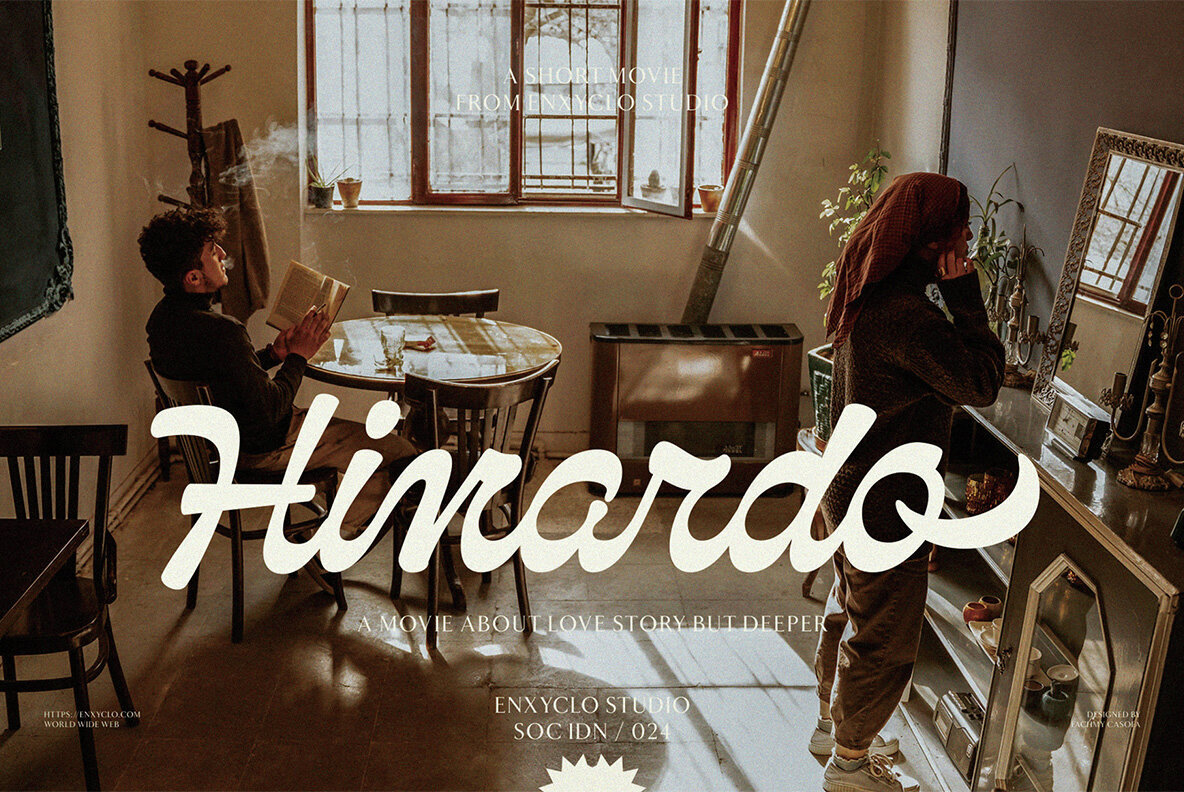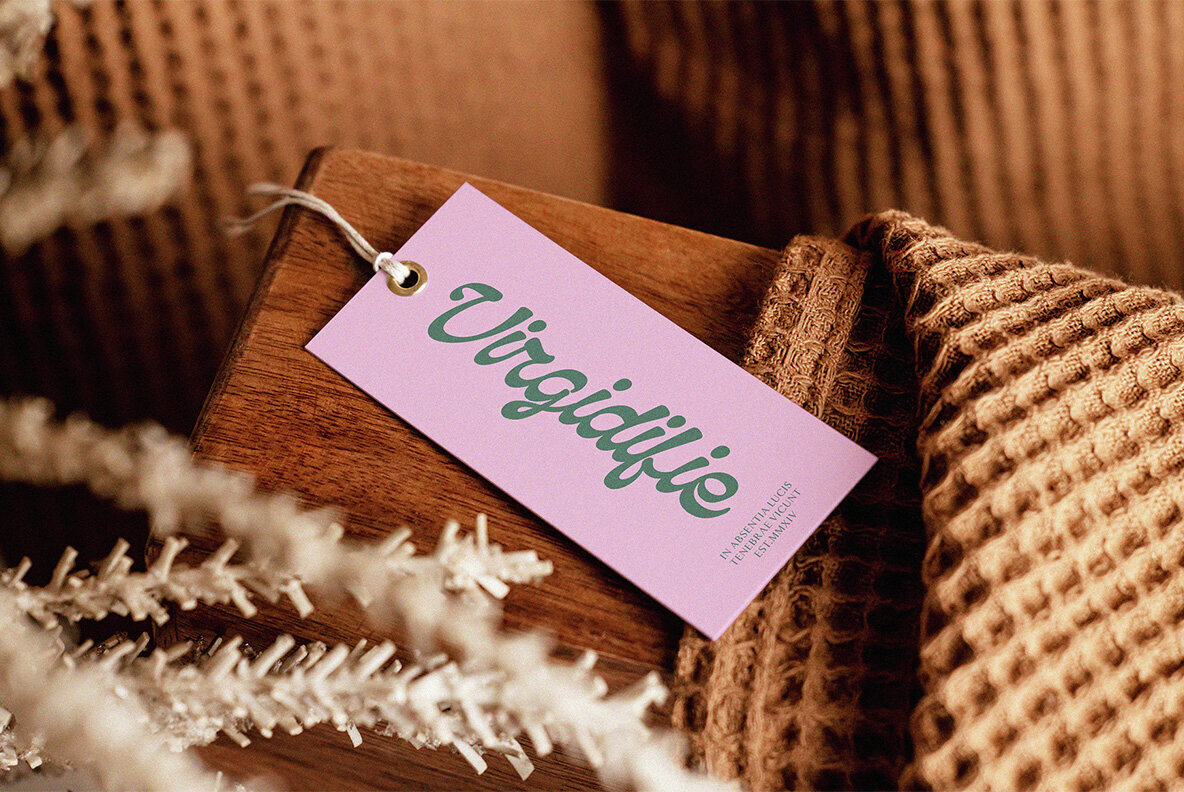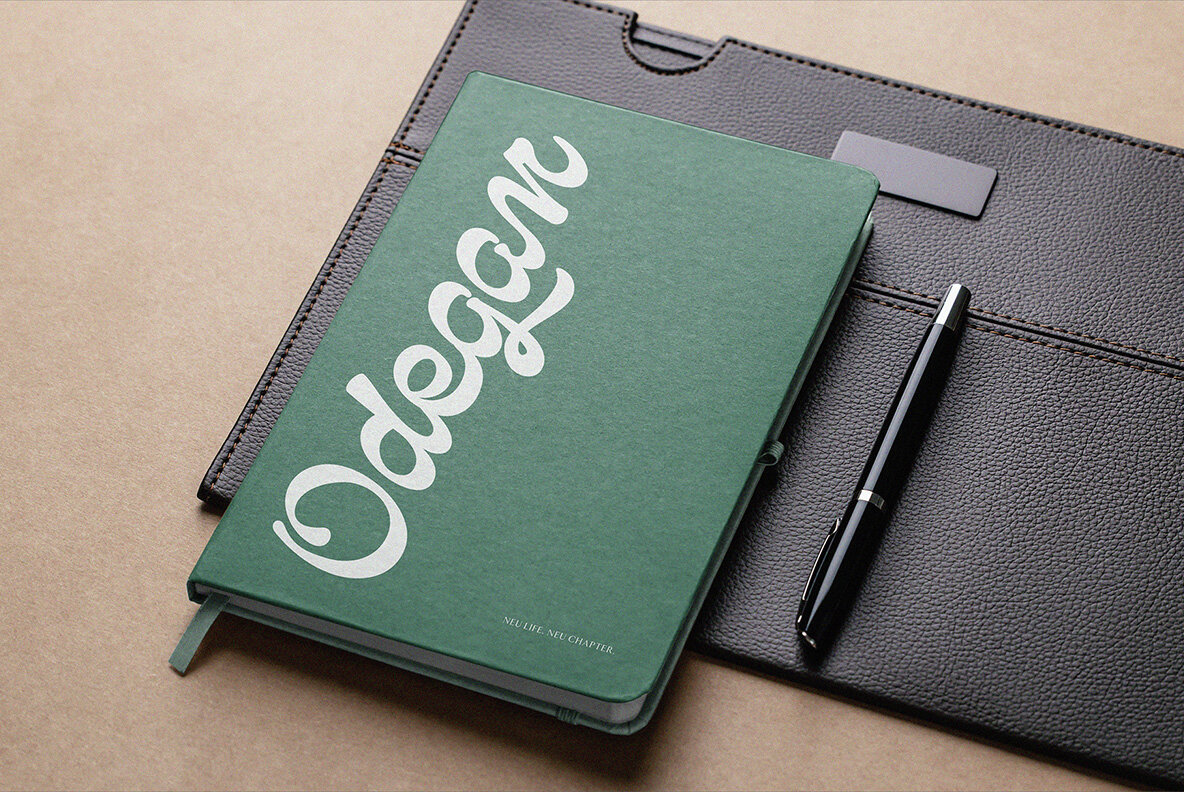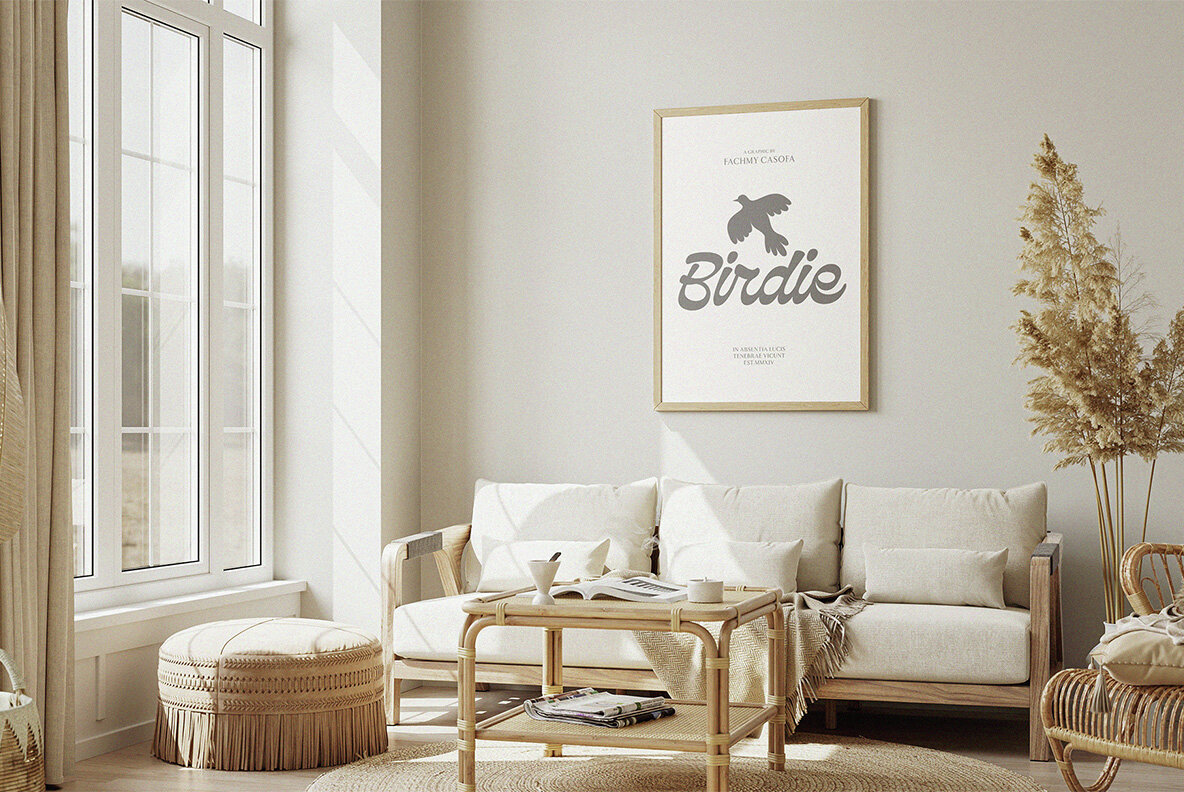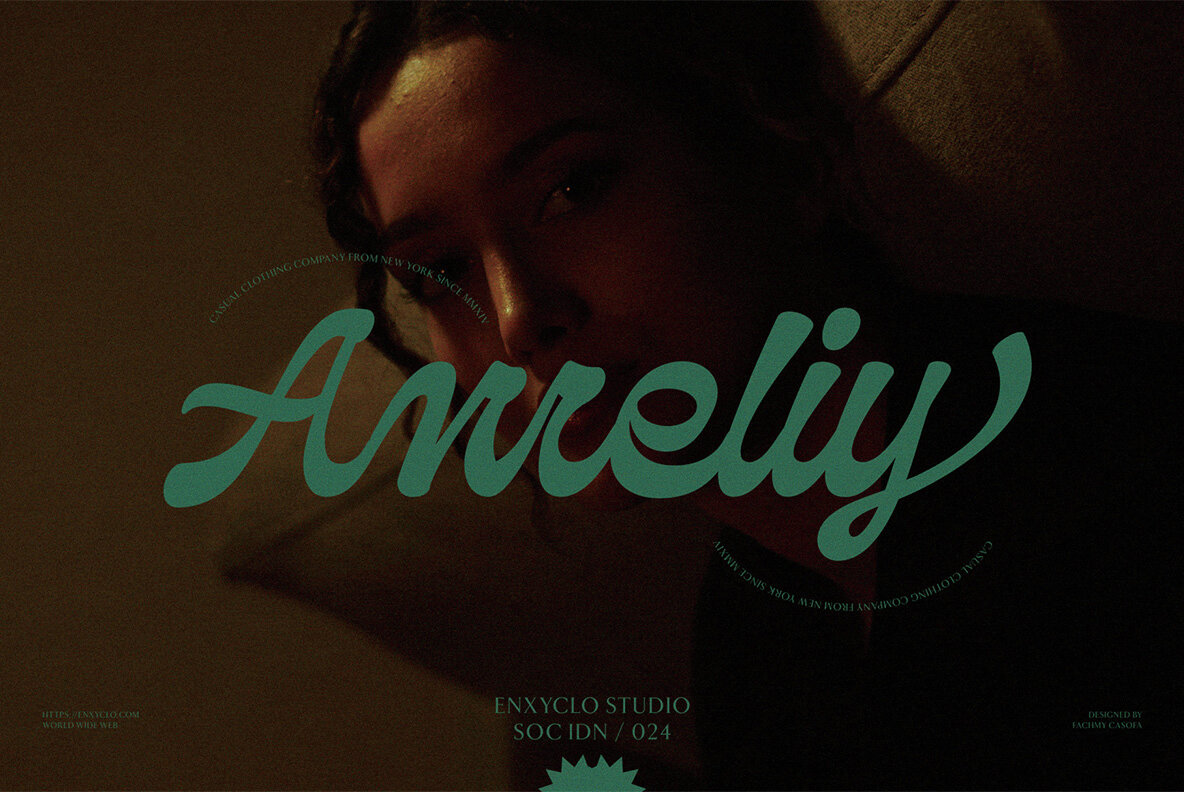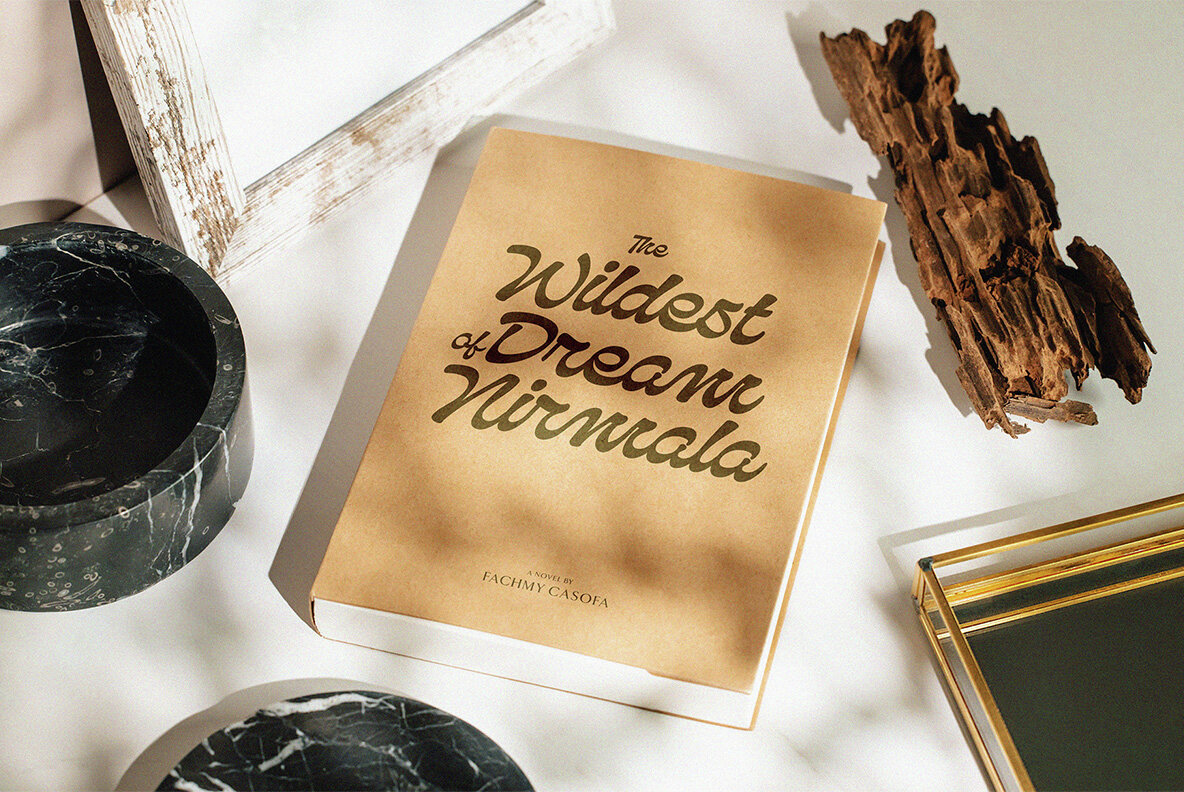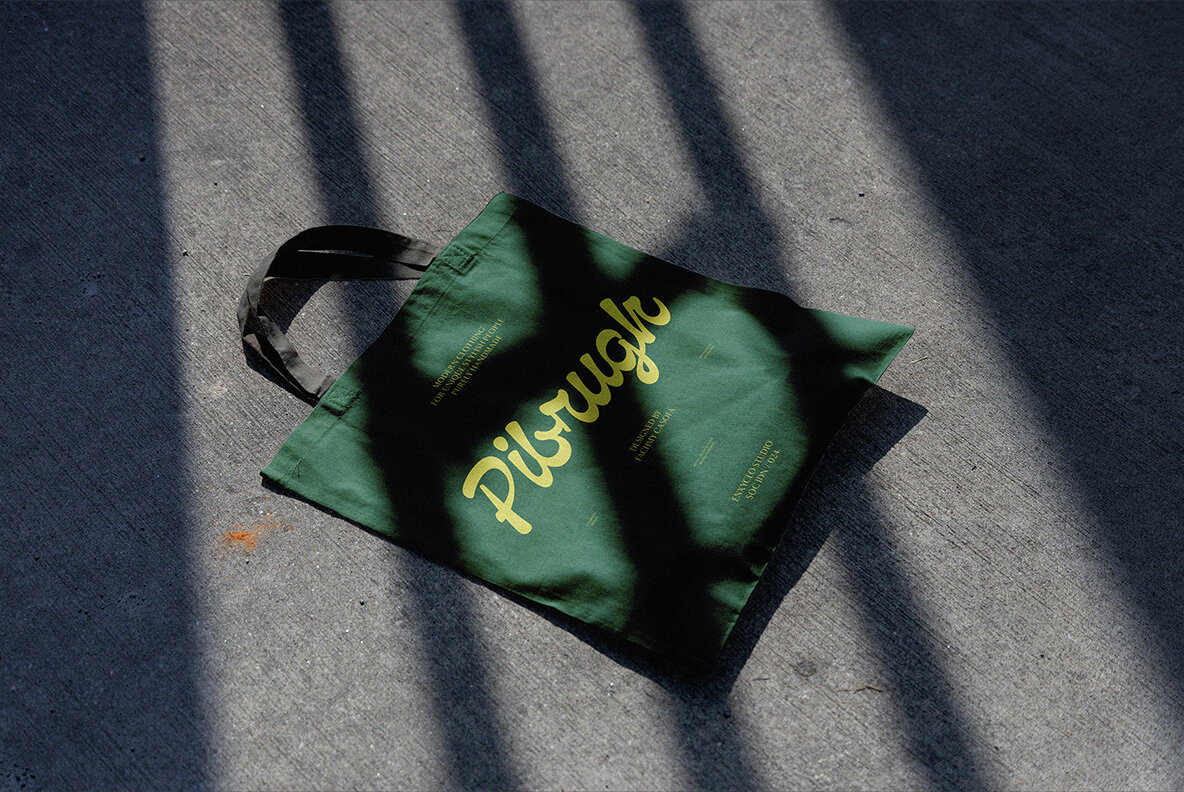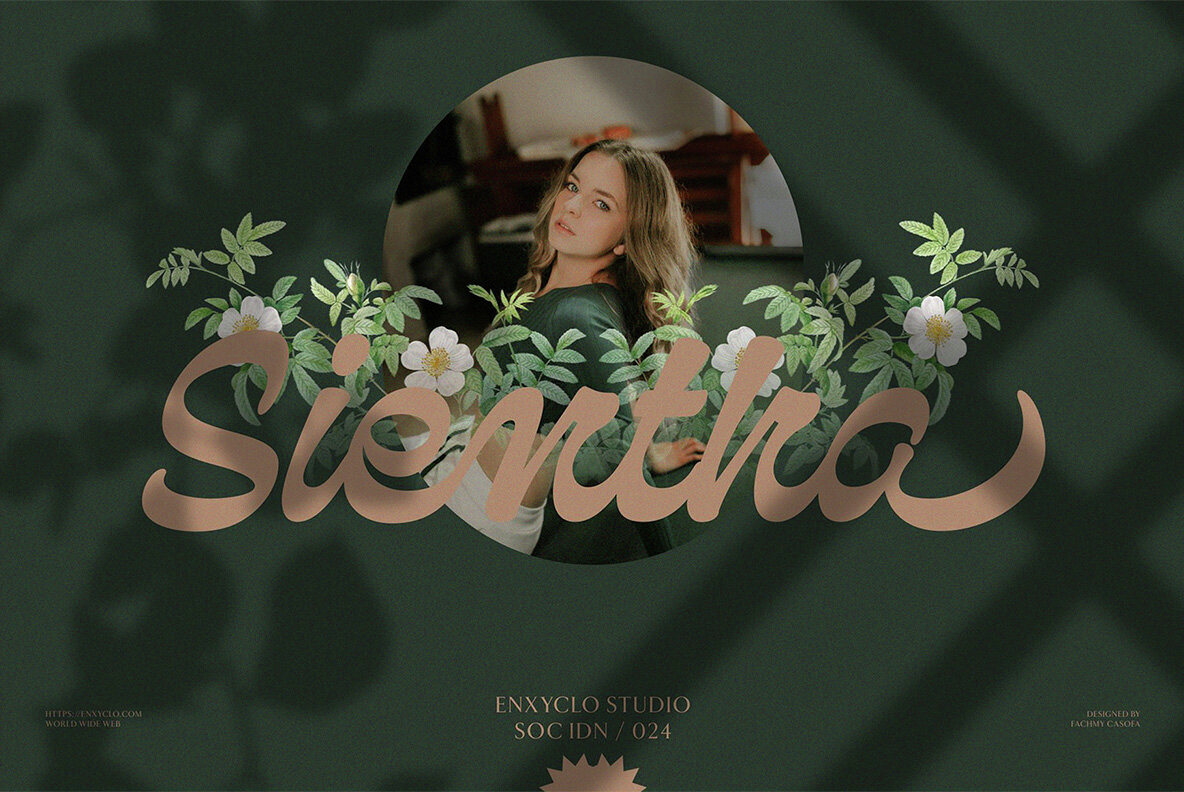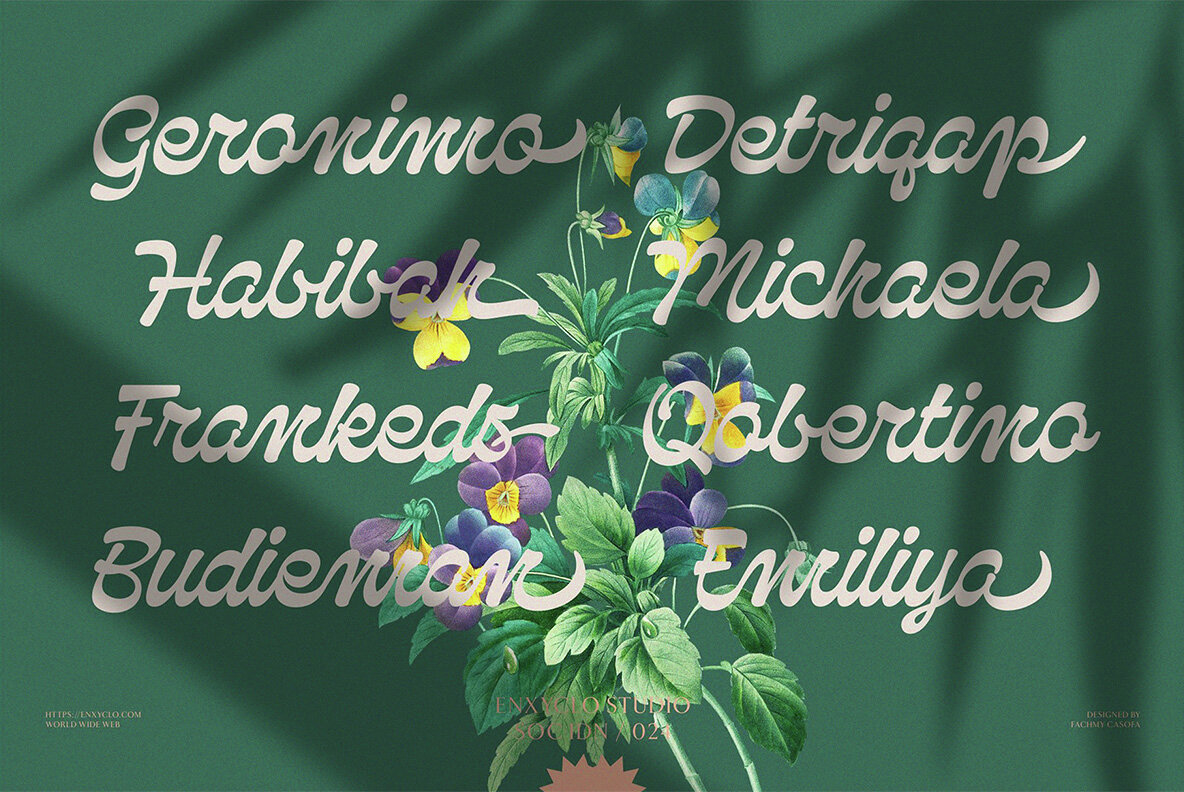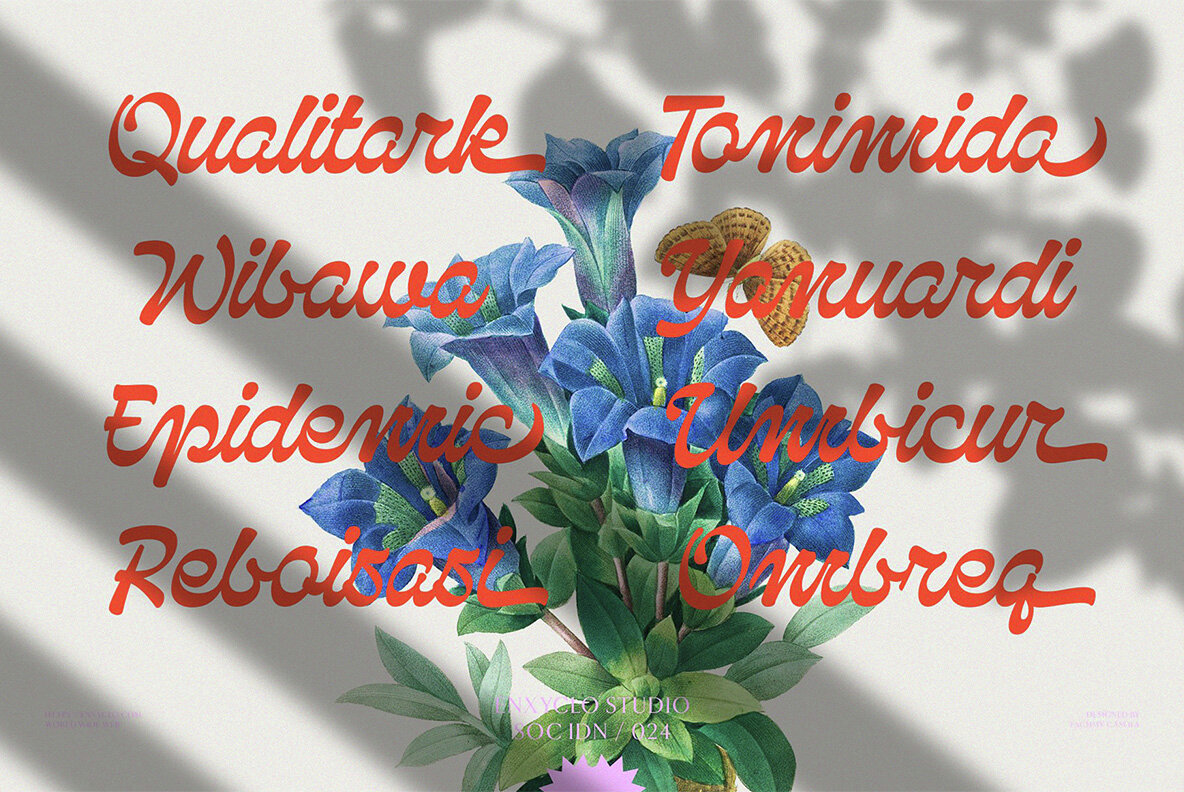
NCL Qanproy Woldriug Font
NCL Qanproy Woldriug Regular
NCL Qanproy Woldriug is a modern casual script display font. Masterfully designed to become a true favorite, this font has the potential to bring each of your creative ideas to the highest level! It was purposely crafted to be used in large point sizes, although it doesn’t lose its magic in small point sizes. It is perfect for headline, digital ads, magazines, website, poster, branding, and logos. No matter the topic, this font will be an incredible asset to your fonts’ library, as it has the potential to elevate any creation. With this beautiful font, absolutely you can make your project stand out from the rest.